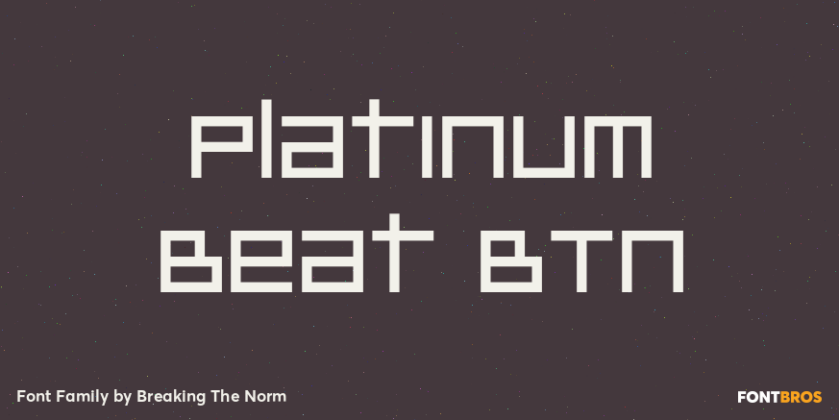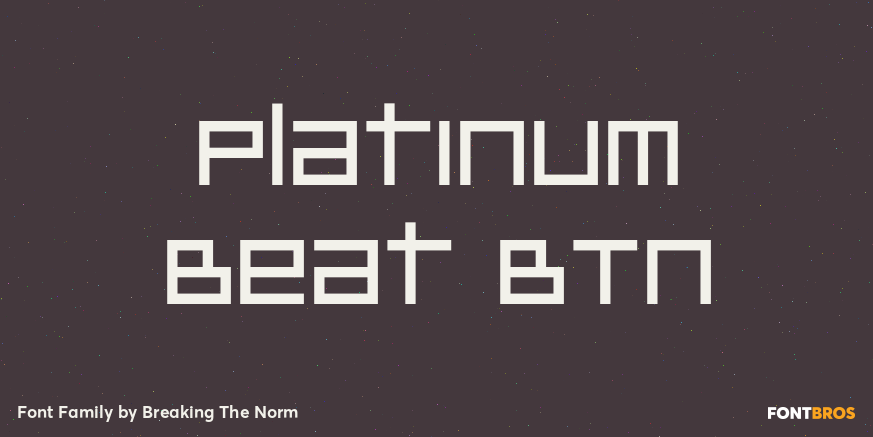
Platinum Beat BTN
About Platinum Beat BTN
Platinum Beat is a tough, geometric, techno typestyle perfect for all sorts of designs. Its style variants offer a wide range of design possibilities with options like Regular, Outline, Raised, and Chiseled for that metal effect.